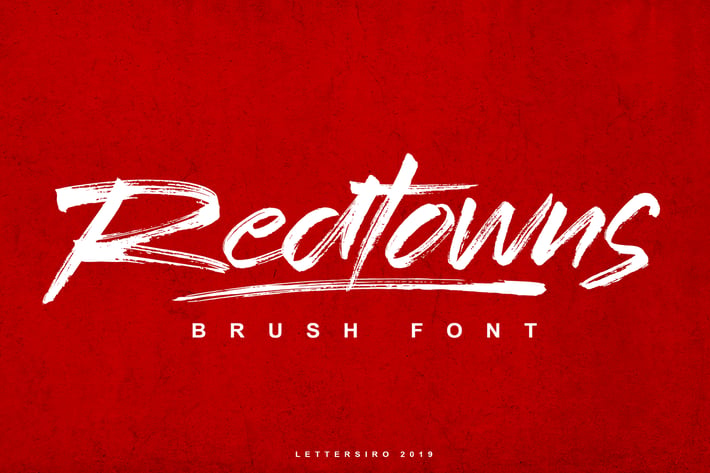
Redtown Font
Hi Guys, Redtowns is our newest font that made manually using brush pen and paper. This font is great for nowdays project like clothing, signature, watermark, photograpy, poster, branding. Redtowns also come with underline swashes than perfectly can be paired. Just do with your own creativity, this is easy use font, will make your project easier.